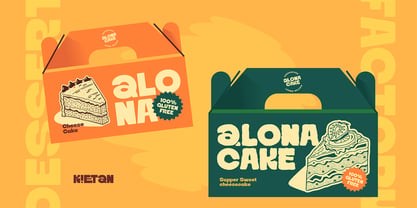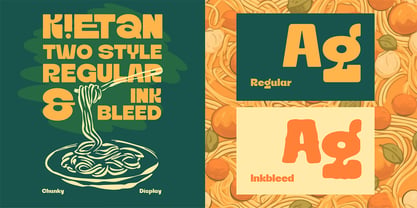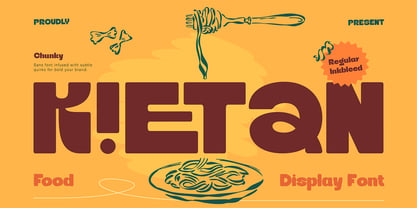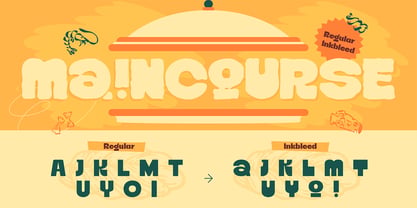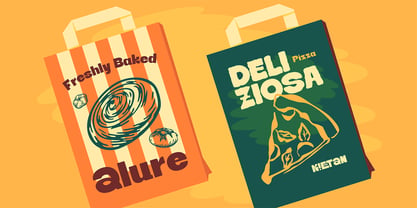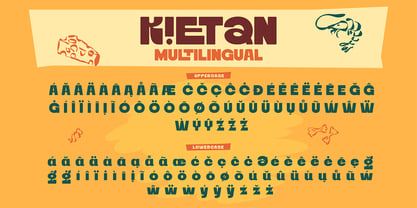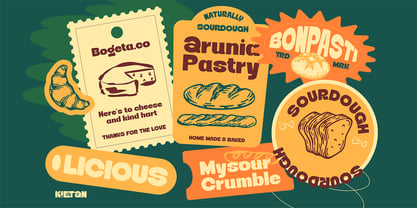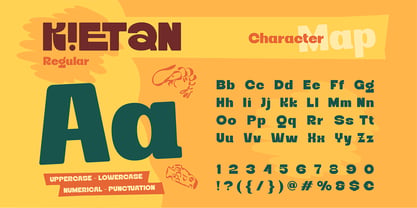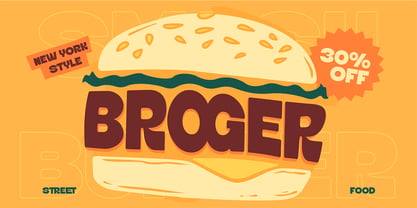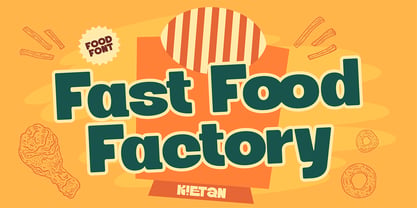
Kietan
Die Schriftfamilie Kietan wurde von Meidy Meichico entworfen und von Artisan Themes veröffentlicht. Kietan enthält 2 Stile und Familienpaketoptionen. Mehr über diese Familie
Kietan is a chunky display font inspired by food, street snacks, and playful branding. It features bold shapes with soft curves that feel warm, fun, and eye-catching. This font comes with two styles: Regular and Inkbleed, giving you flexibility to create clean looks or a more organic, printed feel. Kietan works great for big titles and short texts where you want strong personality. Perfect for food branding, street food menus, packaging, posters, logos, café visuals, and social media designs. Features: A - Z set (Uppercase & Lowercase), Number, Punctuation, Ligatures, Multilingual